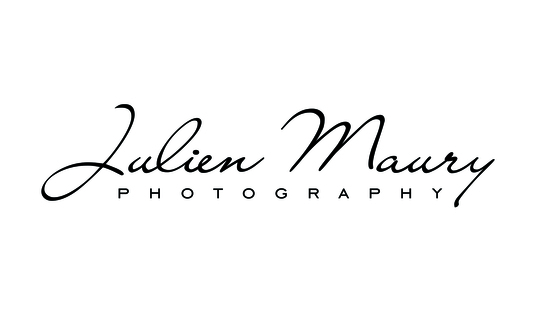
Can anyone help me identifying this font? A similar font will do, too. It is important that the last letter ends in an upward stroke and the capital letter should be pretty similar as well.
Hey, does anyone happen to know what fonts these are?
You could probably find something similar to that as a handwriting font.
However, I expect that your example is not from a font, per se, (look at the huge drop on that "y" 😎 ) but is a logo graphic for that radio channel (your linked video shows that logo with animations during the video. You would have to figure out how to do that, eh?)
I was thinking that some letters could of been customized/altered just for the purpose of this specific logo, but I was hoping that this font logo must of been based on some font at the beginning! No?